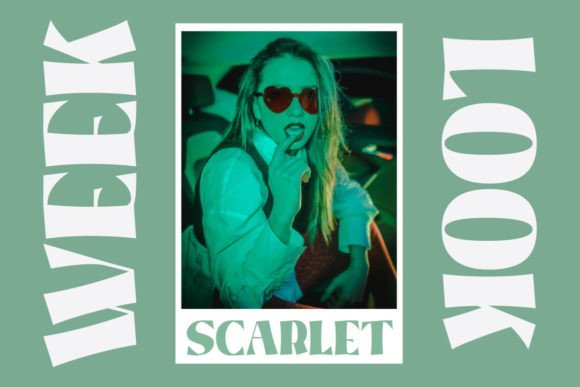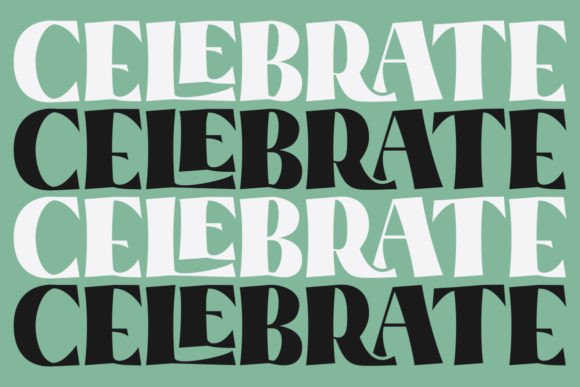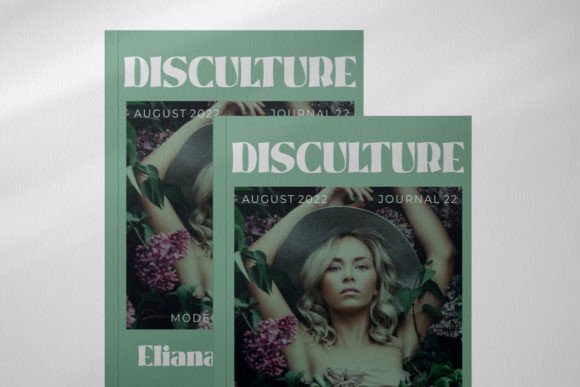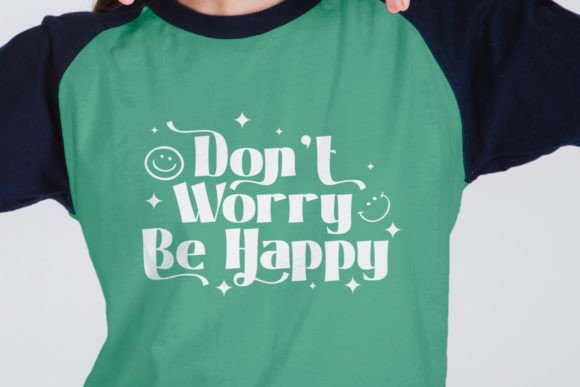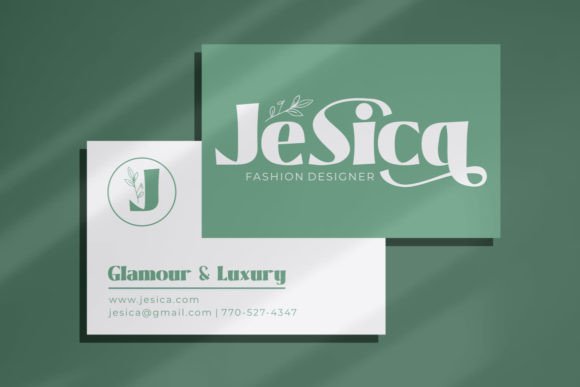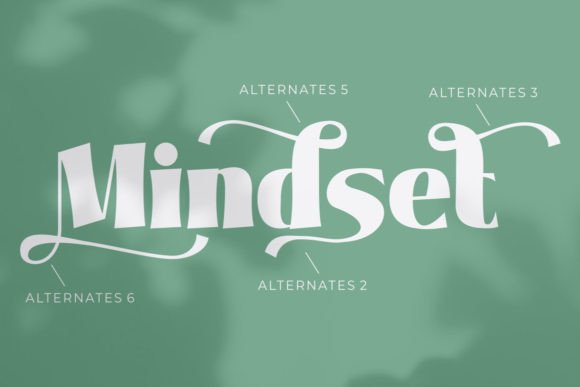
Introduction to Siera Leone Font
Remember the moment when you’re working on a creative project and you’re struggling to find the perfect font to bring your vision to life? The one that screams elegance, sophistication, and a hint of boldness? For designers like you, the right font can be the difference between a good design and a great one. And that’s exactly what Siera Leone Font promises to deliver.
With its stunning design and wide range of glyphs, Siera Leone Font is poised to become your go-to design resource. Whether you’re working on a branding project, a poster, or a social media graphic, this gorgeous display font is sure to elevate your design to the next level. And the best part? It’s PUA encoded, making it easy to access all the glyphs and ligatures you need to create your masterpiece.
Key Features of Siera Leone Font
- High-quality design resource with a unique, traditional African flair, perfect for creative projects and designs.
- Designed to be highly legible and versatile, making it ideal for use in various design contexts, from logos to body text.
Honest Review: Siera Leone Font
I recently had the chance to work with the Siera Leone Font in one of my creative projects and I must say, it’s a great addition to any design resource. The font is available for free download, which is a major plus.
- ✨ One of the standout features of the Siera Leone Font is its high quality design. The font is clean, modern, and has a very professional look to it.
- ✨ The font also comes with a transparent background, which makes it easy to layer and combine with other design elements.
Overall, I was impressed with the Siera Leone Font. It’s a great resource for any designer looking to add some flair to their next creative project. The high quality design and transparent background make it a versatile and useful addition to any design arsenal.
Common Use Cases for Siera Leone Font
The Siera Leone Font is a versatile design resource that can be used for a variety of creative projects, including:
Infographics, posters, and flyers.
Business cards, resumes, and other professional documents.
Websites, social media graphics, and other digital designs.